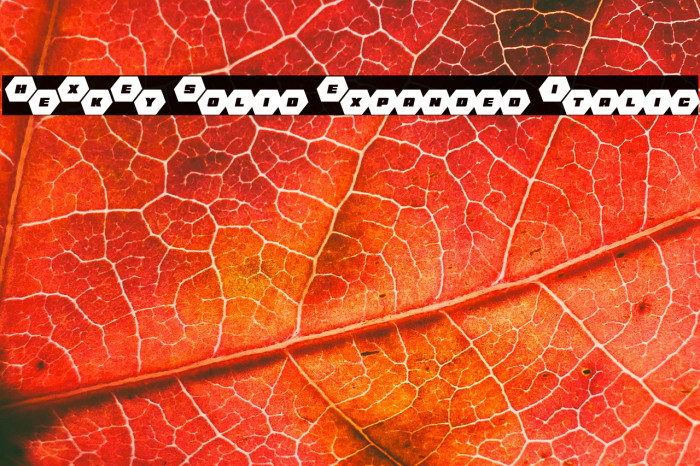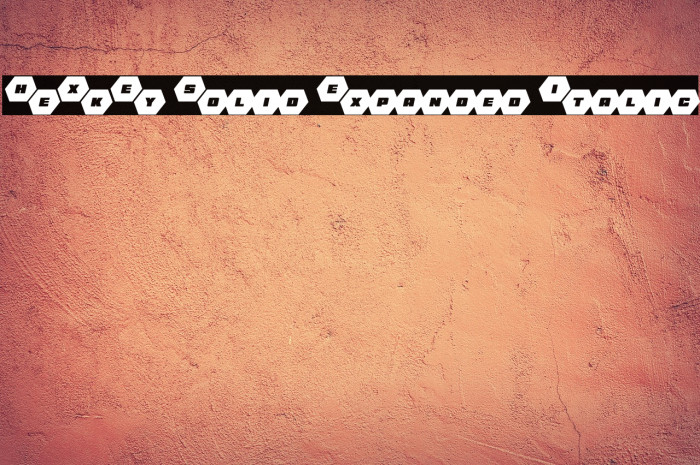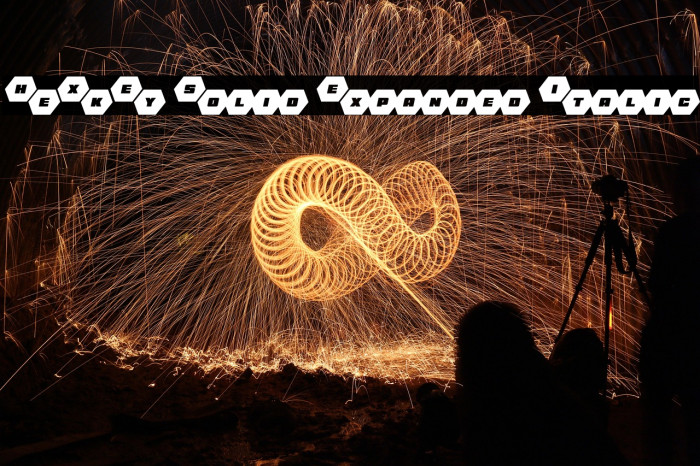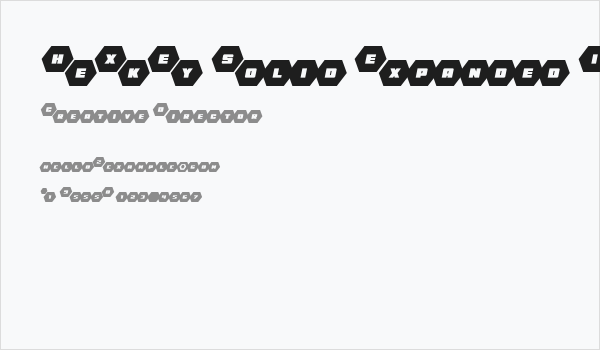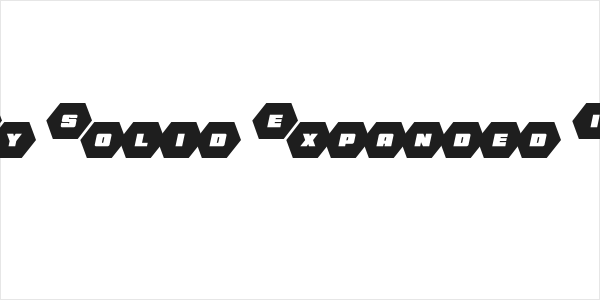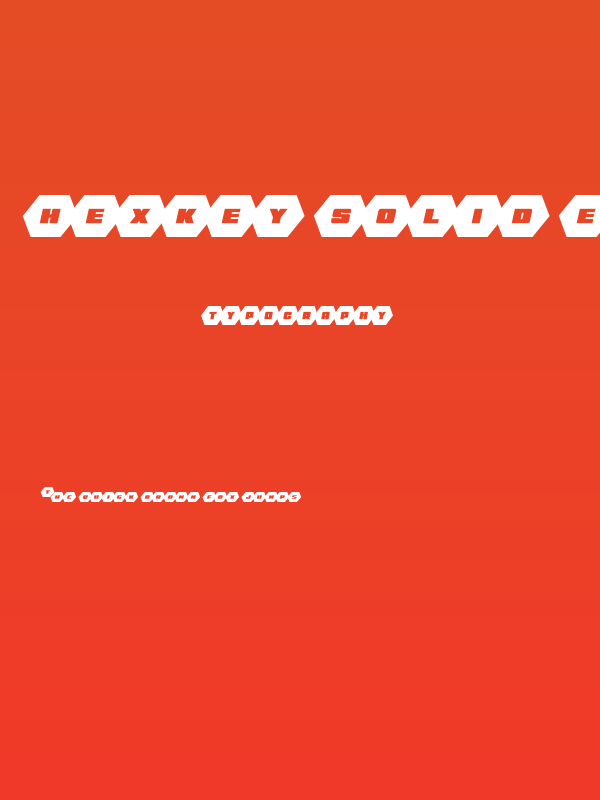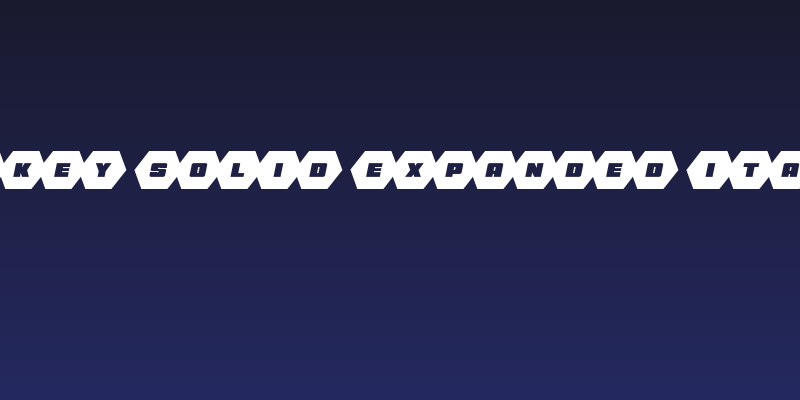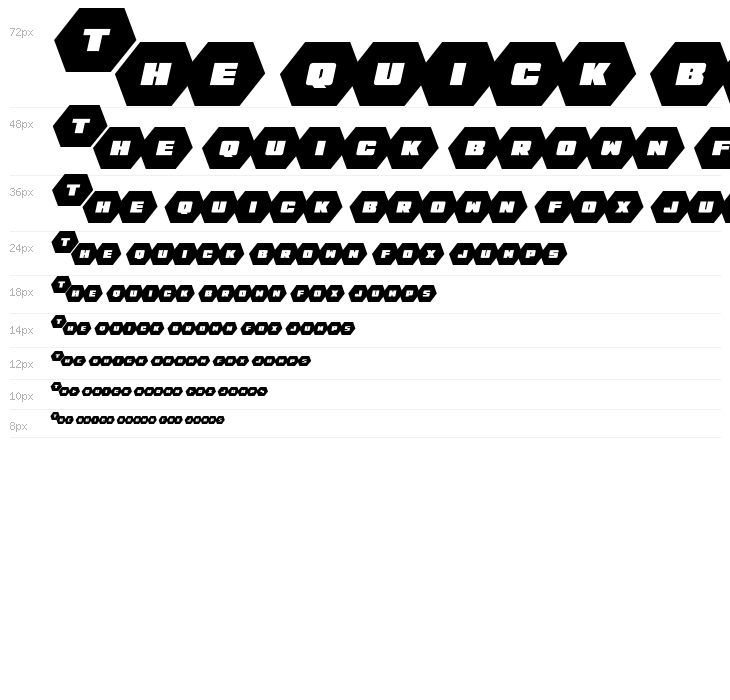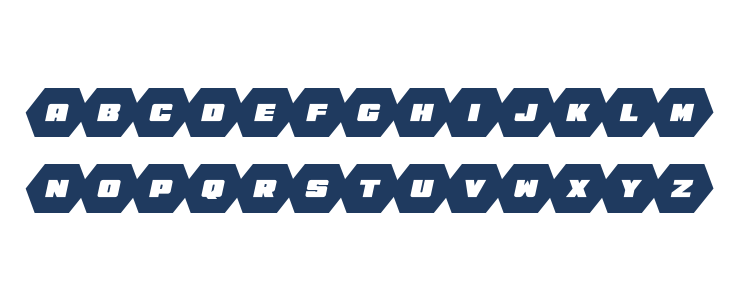
HeXkEy Solid Expanded Italic Font
HeXkEy Solid Expanded Italic Description
This font features a bold, geometric design with each character encased in a hexagonal shape. The letters and numbers are solid and expanded, giving them a strong and impactful presence. The italic style adds a dynamic slant, enhancing the sense of movement and modernity. The characters are uniformly styled, maintaining a consistent thickness throughout, which contributes to a cohesive and striking appearance. The unique hexagonal encasement makes it stand out, suitable for attention-grabbing designs.
| Proposed Projects | Ideal for futuristic designs, tech branding, video game titles, and sci-fi themed projects. |